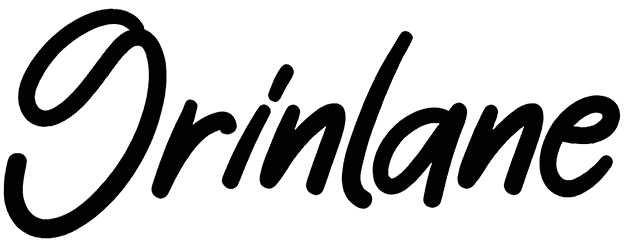
Grinlane Font
If you need to impress a lot of people with different tastes, using a modern handwritten font like this one would be a safe choice. The matchable visual of the Grinlane font turns it into a versatile item, and you have almost all the characters. You can use it for a party invitation, Instagram story, fashion branding, etc. Test it for your coming layout and show off your unique taste.